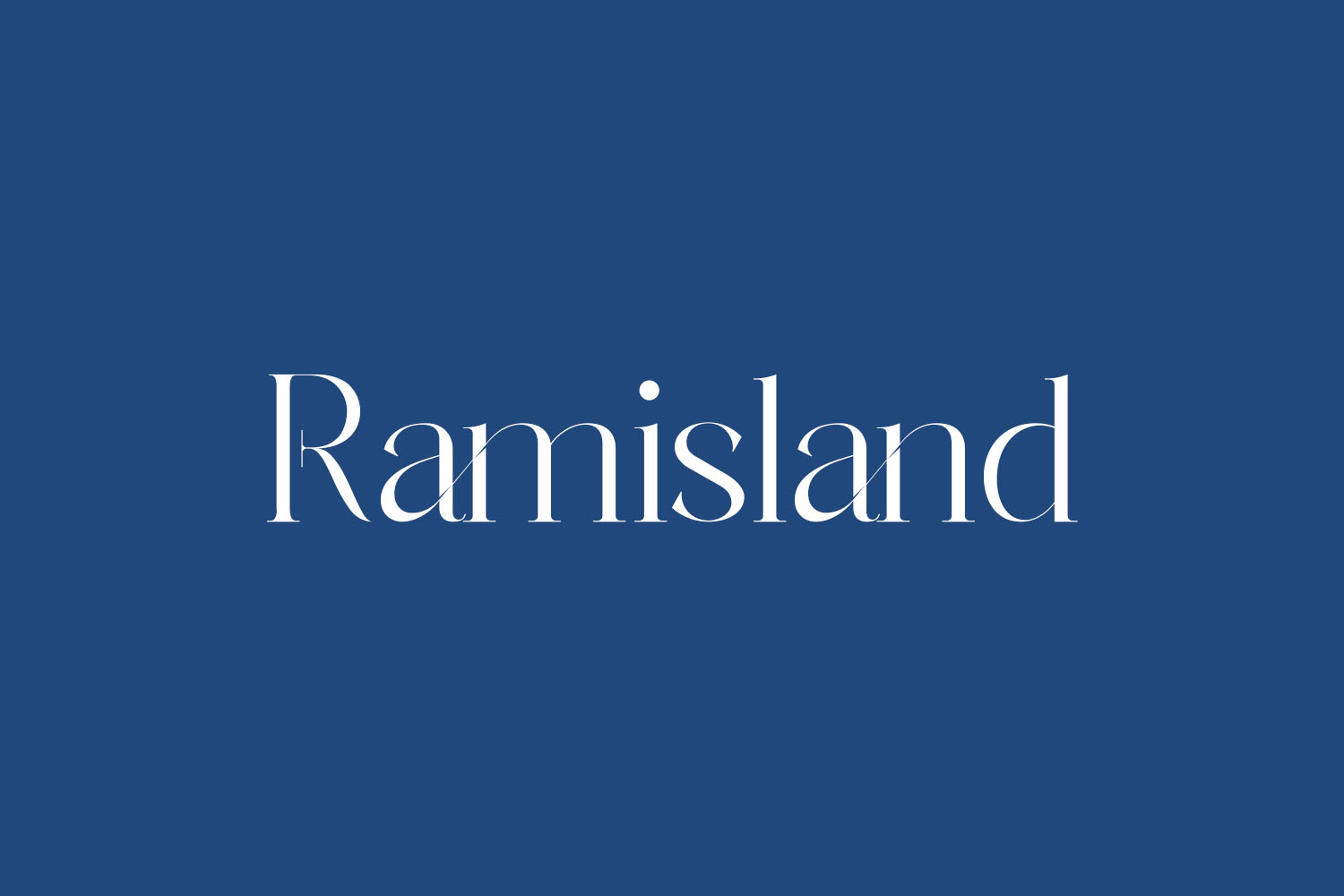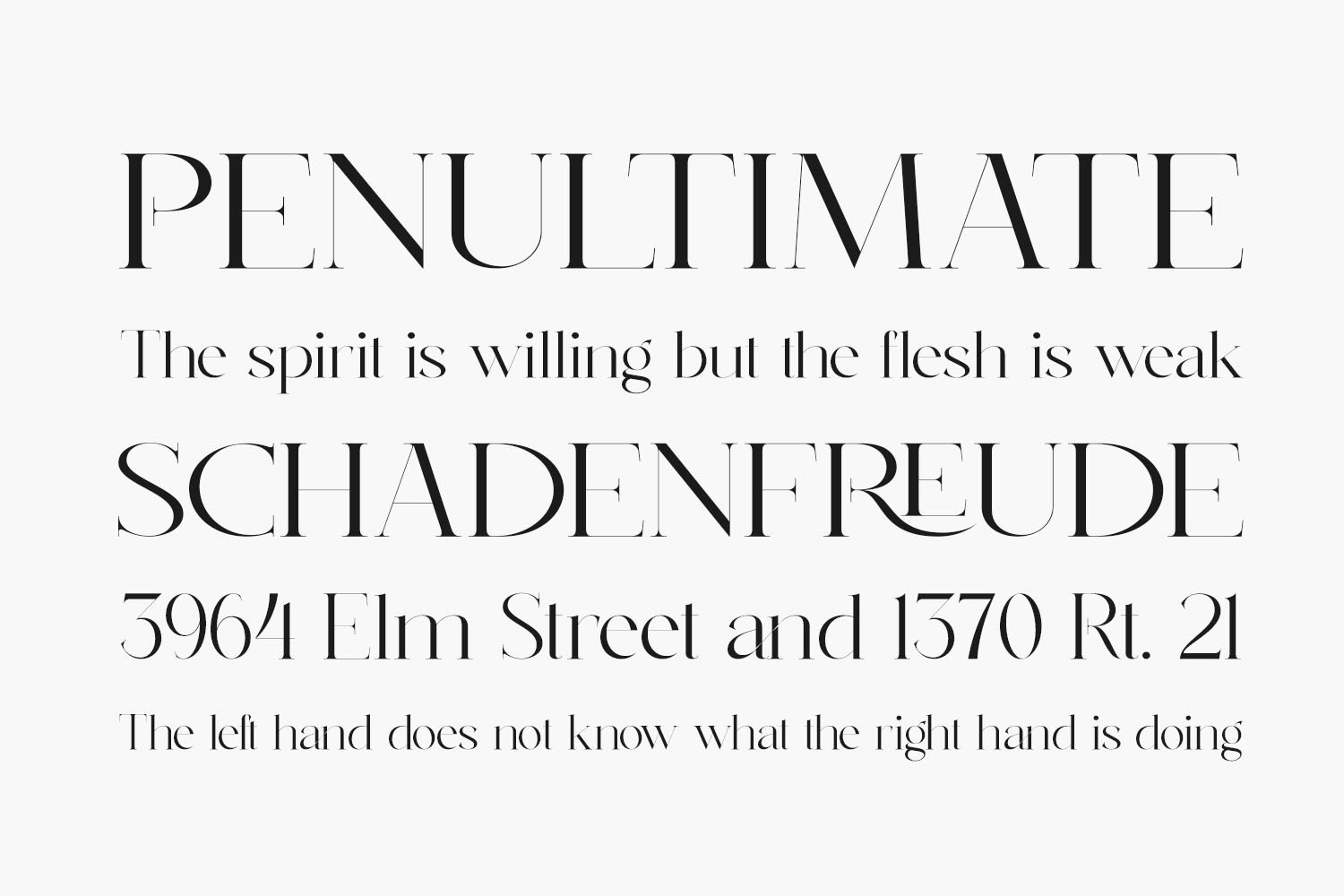
Ramisland Free Font, a serif font exuding a distinctive style and contemporary allure, is your gateway to a world of sophistication. This versatile typeface is your go-to choice for creating exquisite and opulent logos, eye-catching book or movie titles, luxurious fashion branding, chic magazine layouts, stylish clothing designs, elegant lettering, inspirational quotes, and much more. Ramisland Free Font is free for personal use only. Please purchase the full version for commercial use.